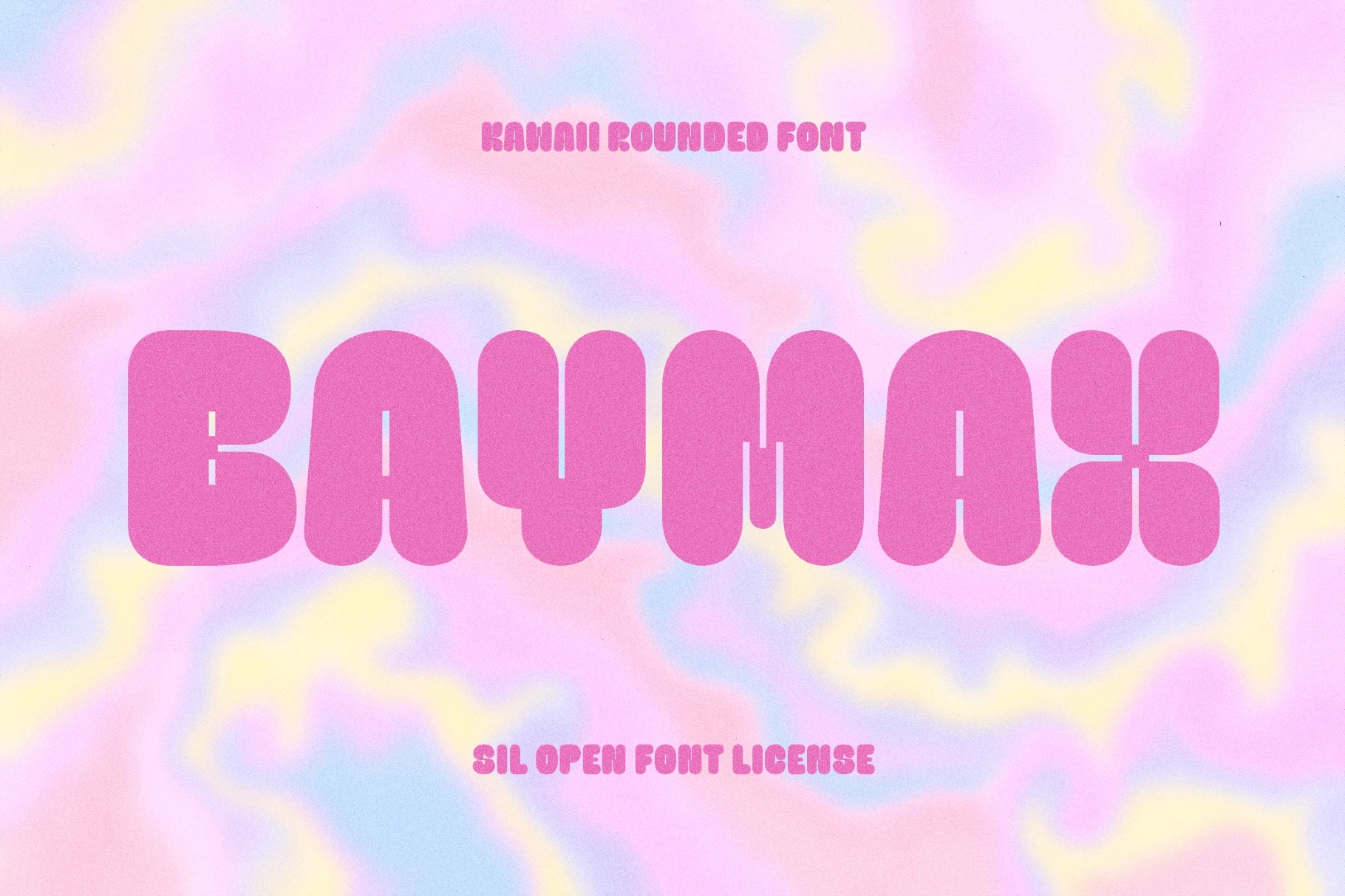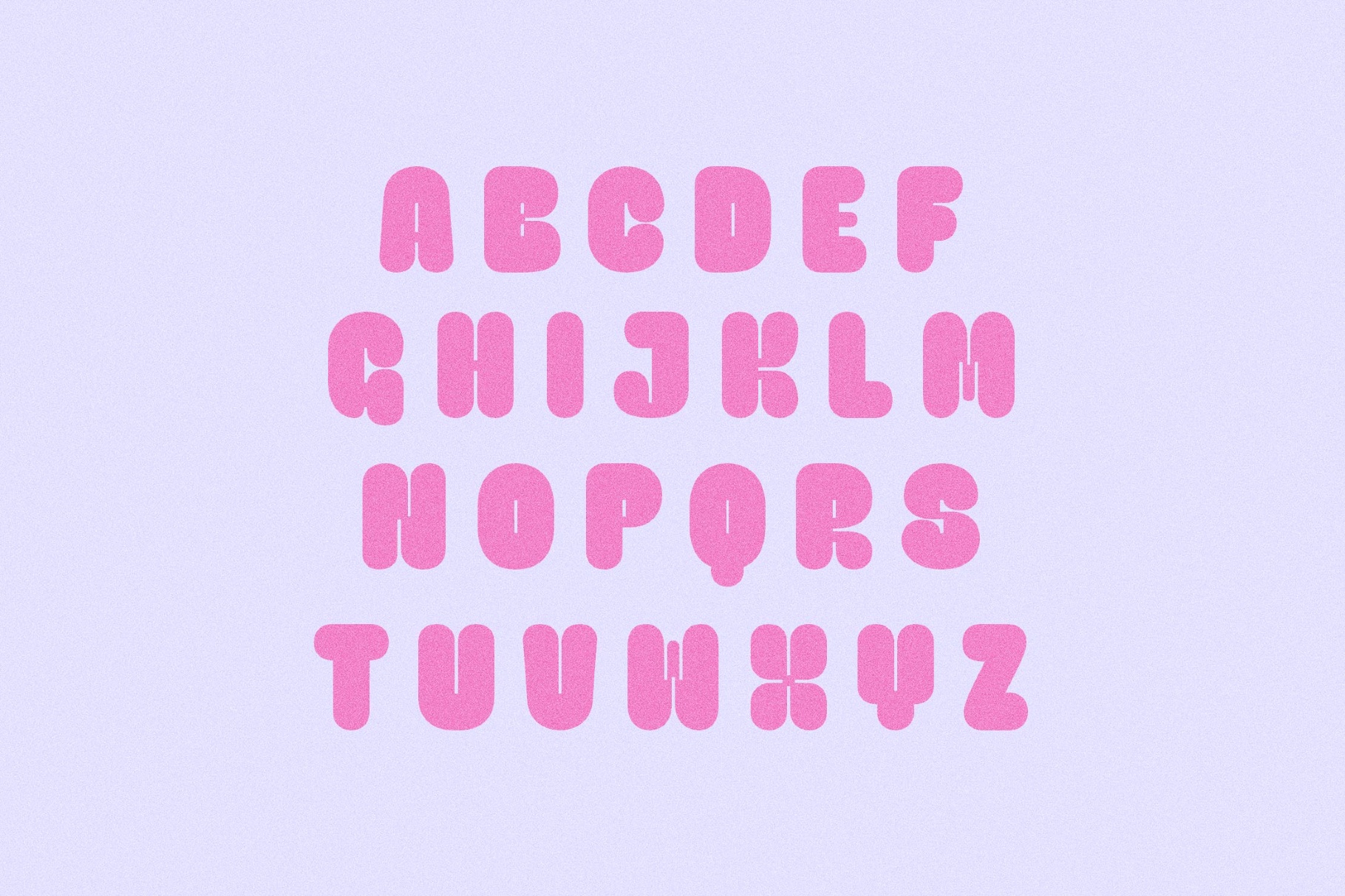
Baymax - Kawaii Playful Font
Baymax
Baymax is a rounded font with the soft elasticity of kawaii character design, inflatable toy forms, and cheerful Japanese illustration, giving it a plush, friendly presence. This type suits for kids’ branding, toy packaging, party invites, snack labels, poster titles, playful logos and social graphics.